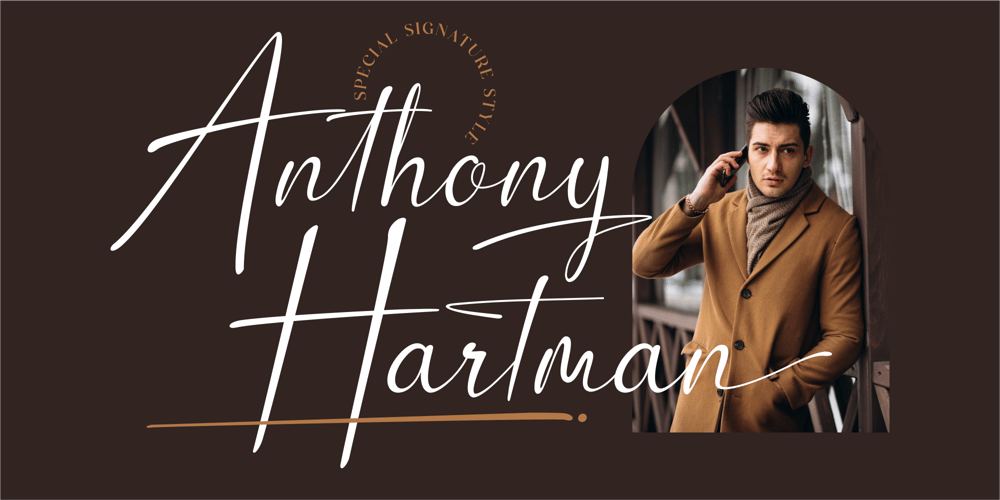
Anthony Hartman Font Family was designed by Heru Utama Putra and published by Letterena Studios. Anthony Hartman contains 2 styles and family package options. Your branding missing something that makes people amaze? Looking for an elegant font to attract your audiences or customers? What if we told you, you only need to change one element to engage and convert your clients?Introducing Anthony Hartman – A Modern Script Font Giving you a simple, yet gorgeous solution to your branding. This font is another level script font. It encapsulates the essence of elegance and modernity. With its clean script-type design and curved indentations, this font will take your projects to the next level! Use it for headings, logos, business cards, printed quotes, invitations of all sorts, cards, packaging, and your website or social media branding.Anthony Hartman includes Multilingual Options to make your branding globally acceptable.Features: Ligatures Alternates Swashes Multilingual Support PUA Encoded Numerals and Punctuation